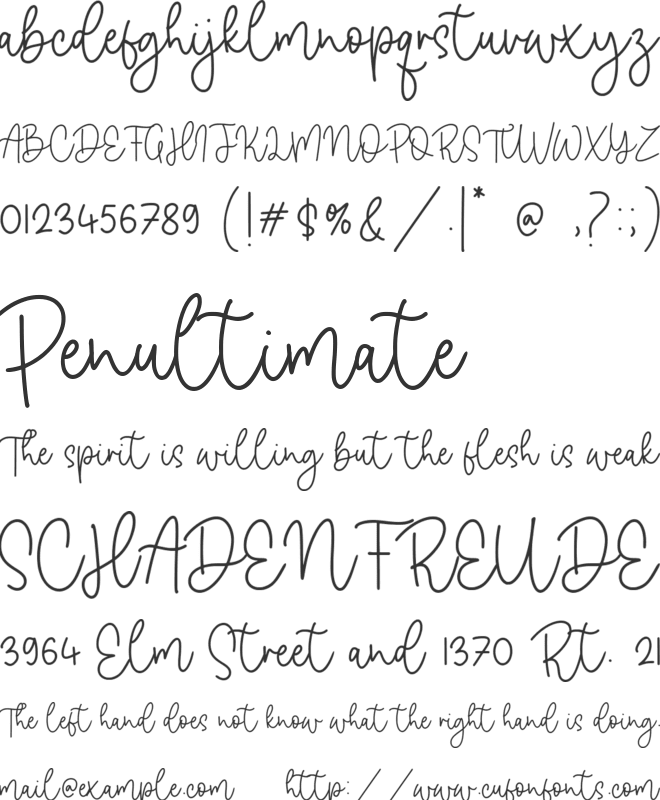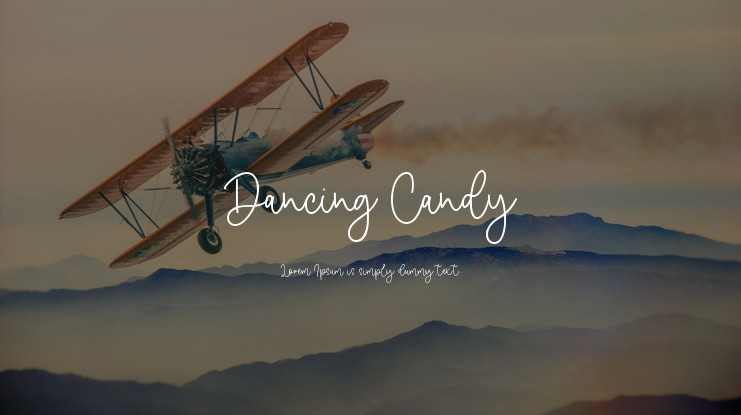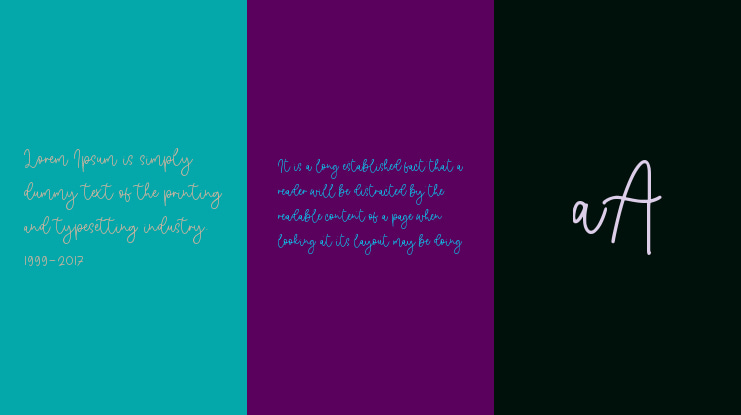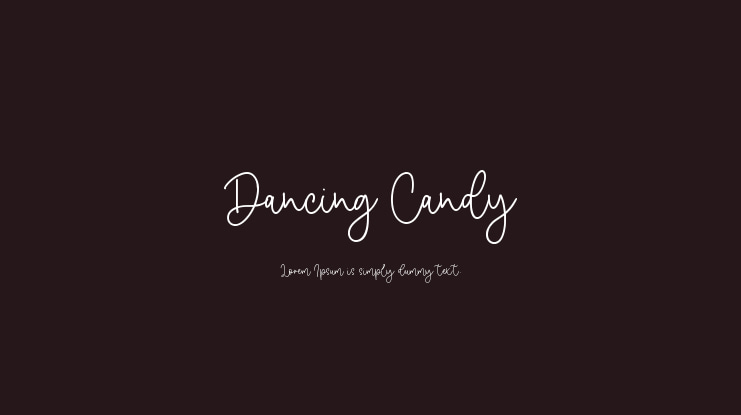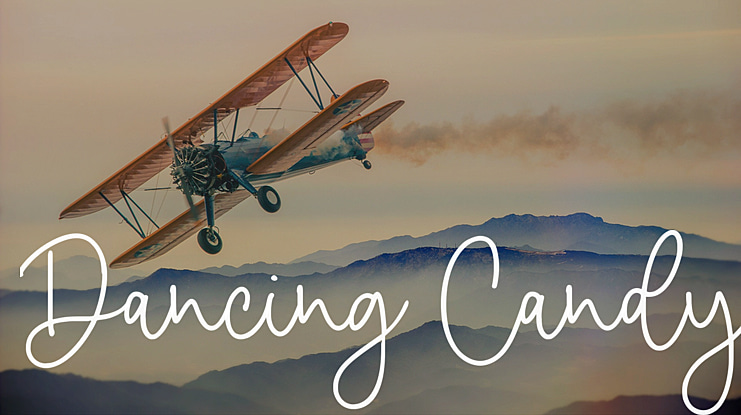
Dancing Candy Font
Proudly Present, Dancing Candy Font.
Dancing Candy is a Modern Monoline Handwritten Font.
Dancing Candy is perfect for product packaging, branding project, megazine, social media, wedding, or just used to express words above the background.